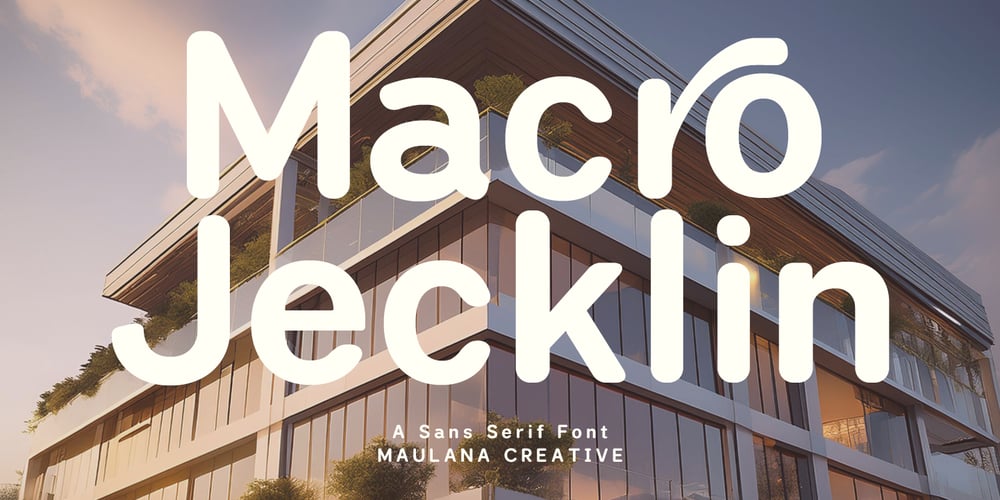
MC Macro Jecklin Font Family was designed by Gilang Maulana and published by Maulana Creative. MC Macro Jecklin contains 1 styles and family package options. Macro Jecklin is a modern sans serif font. With medium rounded stroke, fun character with a bit of ligature. To give you an extra creative work Macro Jecklin font support multilingual more than 100+ language. This font is good for logo design, Social media, Movie Titles, Books Titles, a short text even a long text letter and good for your secondary text font with sans or serif. Make a stunning work with Macro Jecklin font.